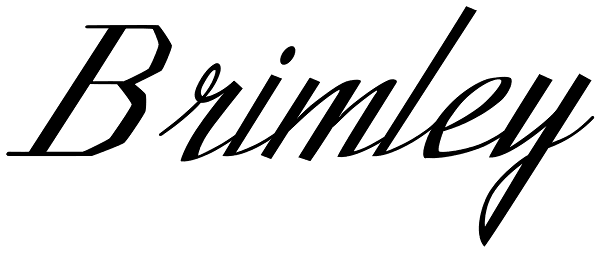
Brimley
This slinky number will seduce you with its linking letters and special ligatures. Brimley's strokes are tight and sharp, and its characters are tied together with slender, whispy hooks. Although its elegance is timeless, this is a style that...